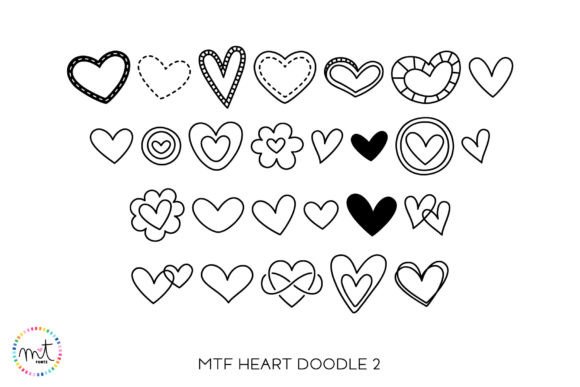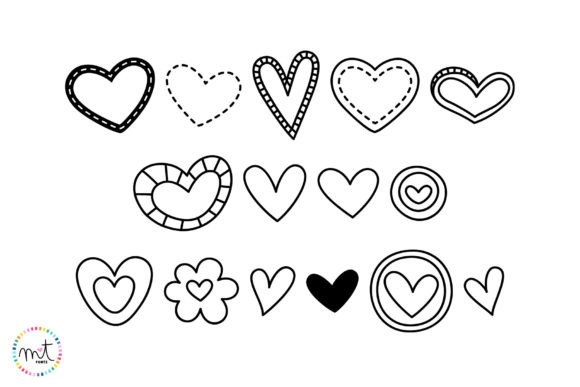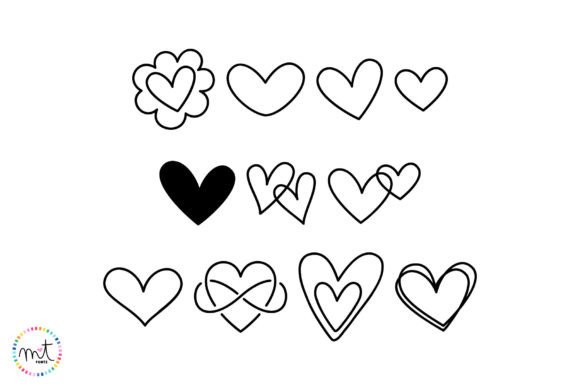
Heart Doodle is the perfect dingbat font for Valentine’s Day, weddings, or anything love-related. This cute typeface will help you tackle romantic projects in an easy and fun manner with it’s 26 charming doodled characters!
Heart Doodle 2 Font